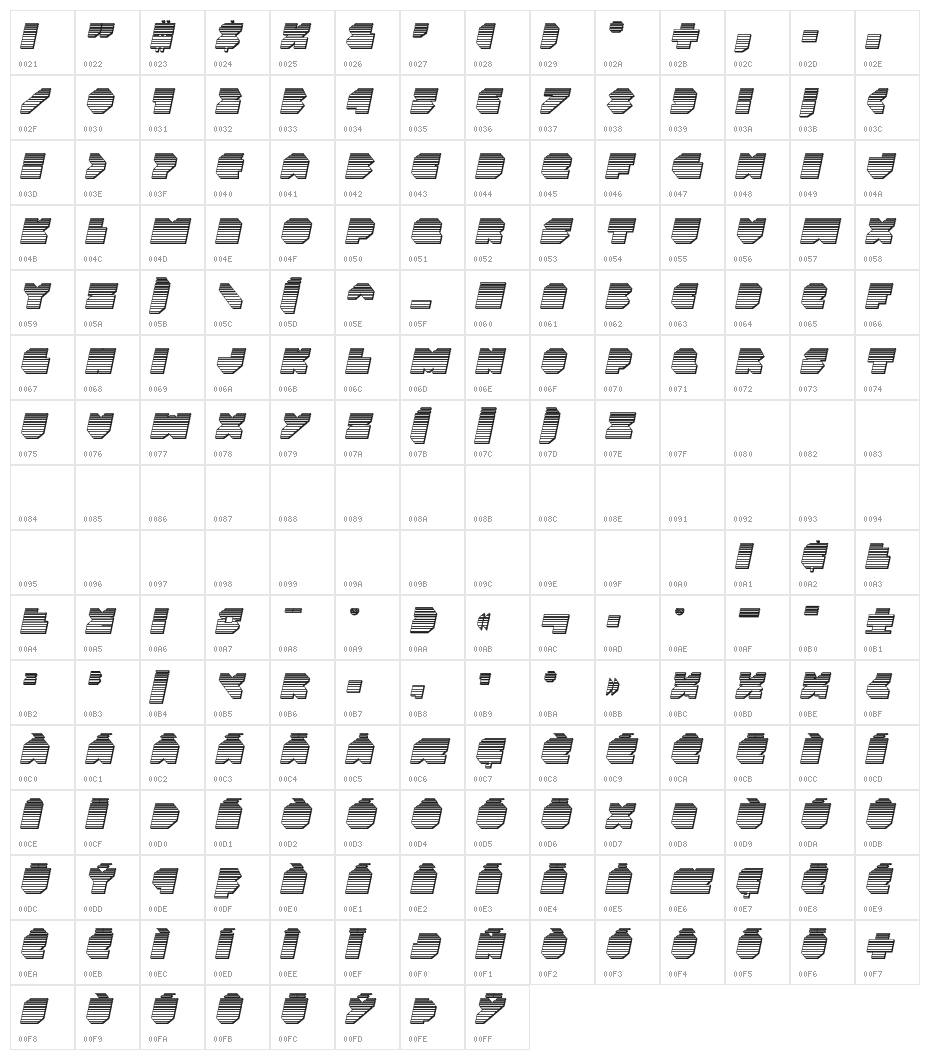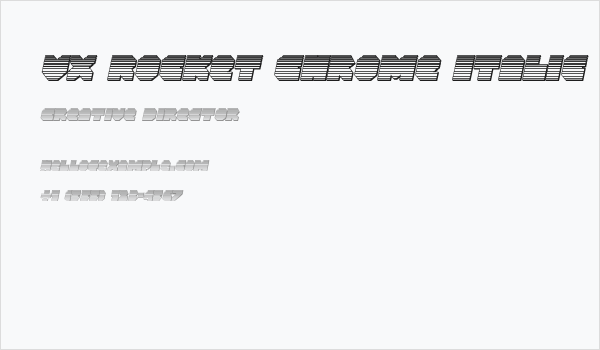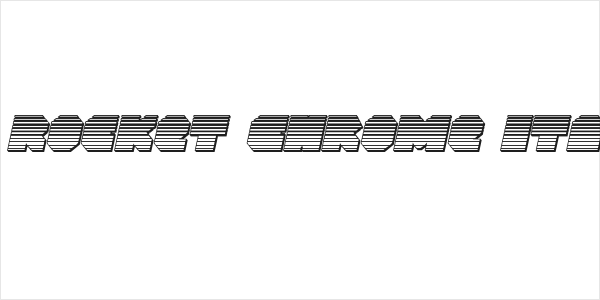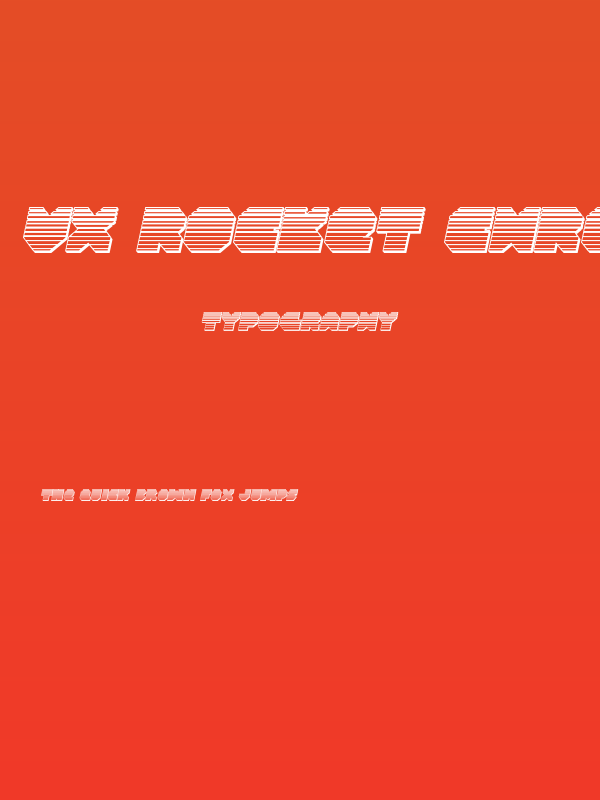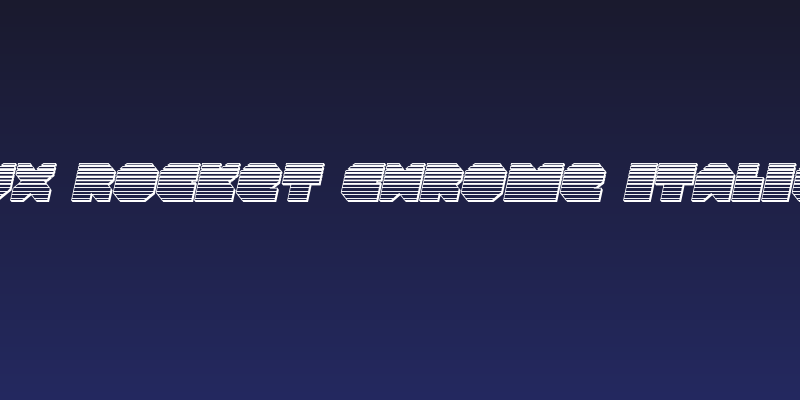
VX Rocket Chrome Italic Font
VX Rocket Chrome Italic Description
This font features a bold, futuristic design with a distinct chrome-like appearance. Each character is constructed with horizontal lines that create a sense of depth and movement, giving it a dynamic and modern feel. The italic slant adds an additional layer of speed and agility to the overall look. The uppercase and lowercase letters maintain a consistent style, while the numbers and special characters are equally bold and striking. This font is perfect for projects that require a strong, eye-catching display typeface.
| Overall Style | Futuristic, Dynamic |
| Proposed Projects | Ideal for sci-fi themed posters, video game titles, technology branding, and futuristic event invitations. |